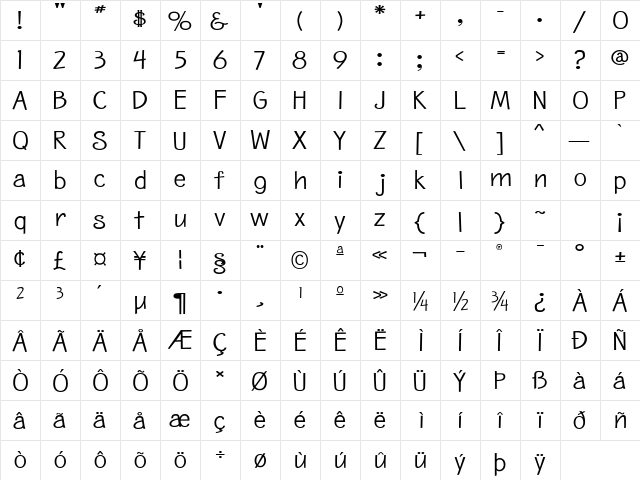
Birdlegs MdSBG
Design Context for Birdlegs Typeface
Birdlegs is a composed and adaptable typeface that performs quietly and consistently across a wide range of design contexts.